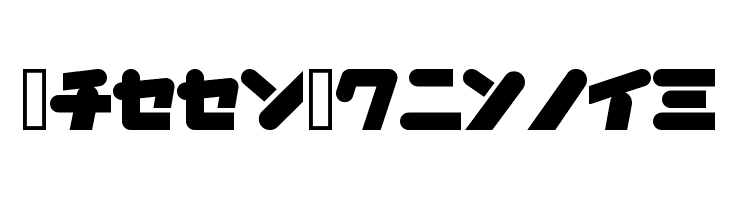
A whimsical and decorative font with artistic, elongated strokes and unique character shapes.
A bold, classic serif font with elegant curves and strong strokes.
A bold, geometric font with a unique shadow effect for a three-dimensional look.
A playful, casual handwritten font with smooth, rounded strokes.
( Fonts by The Scriptorium - Dave Nalle )
An ornate and classic font with intricate, flowing letterforms and sharp serifs.
( Fonts by junkohanhero )
A bold, distressed font with a textured, vintage appearance.
( Archetype )
A bold, geometric font with strong lines and uniform stroke width.
设计师偏爱 OPTIGlorietta, FlankerGriffo-Bold, Zachary-Hanson, Semplicita-Ombra and Zud Juice,因为其造型干净、适用范围广—— 从品牌识别到落地页、海报都能胜任。